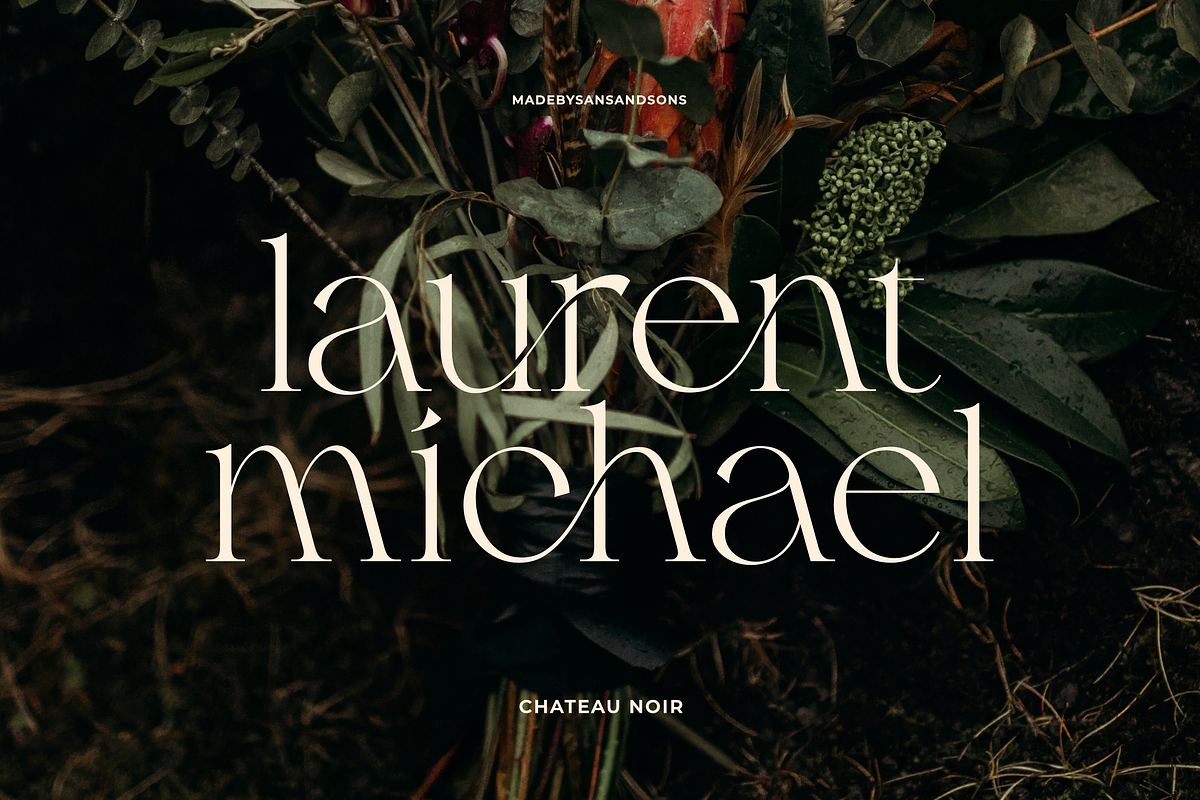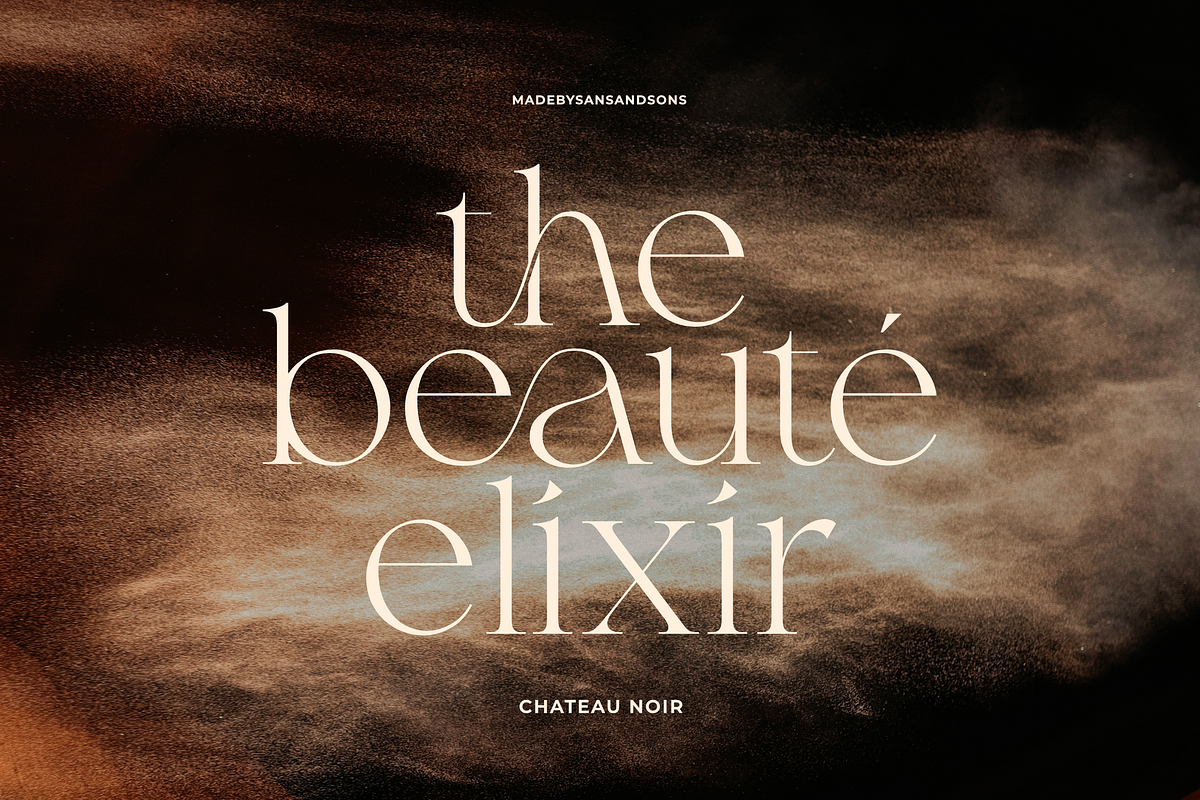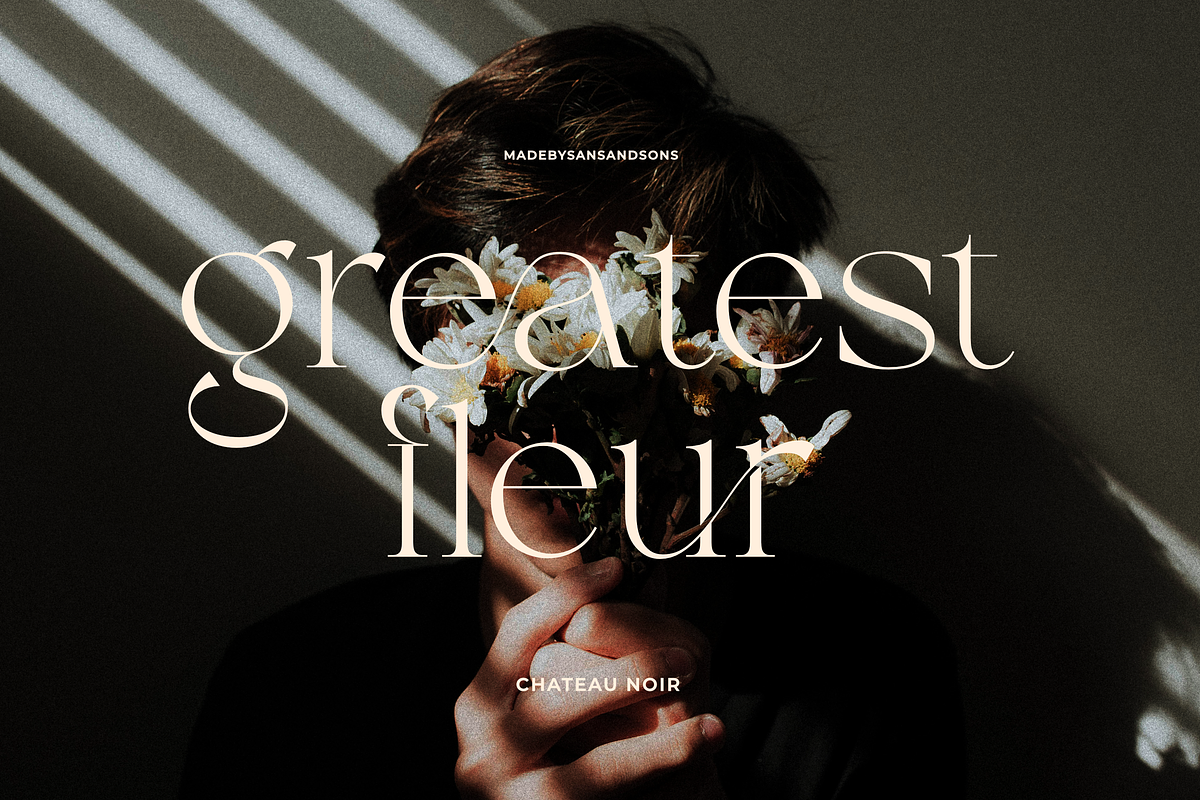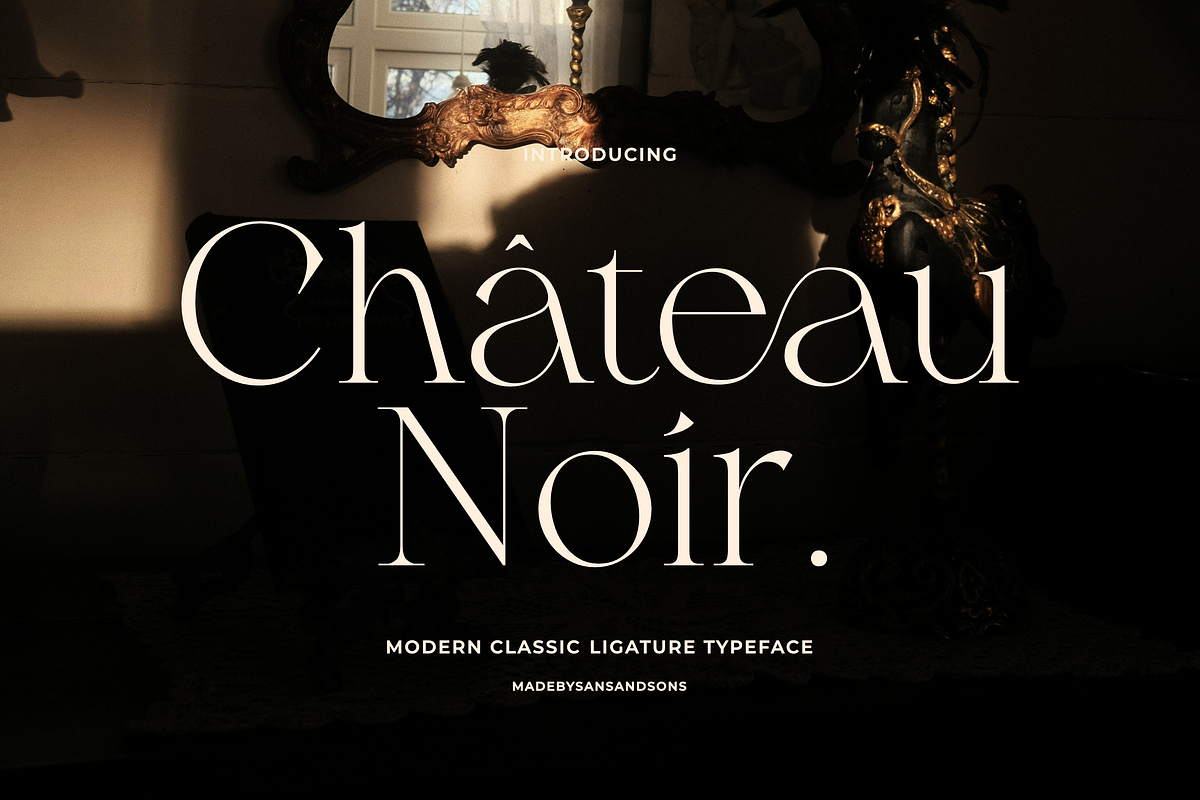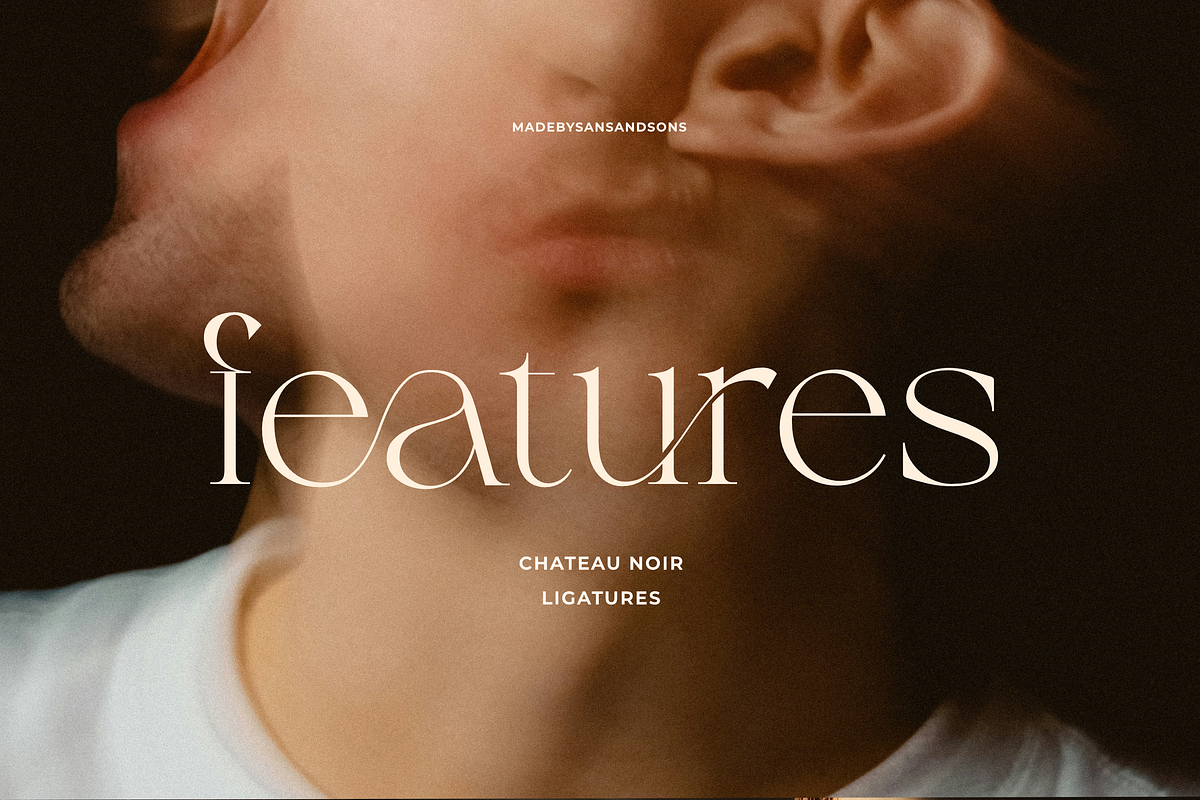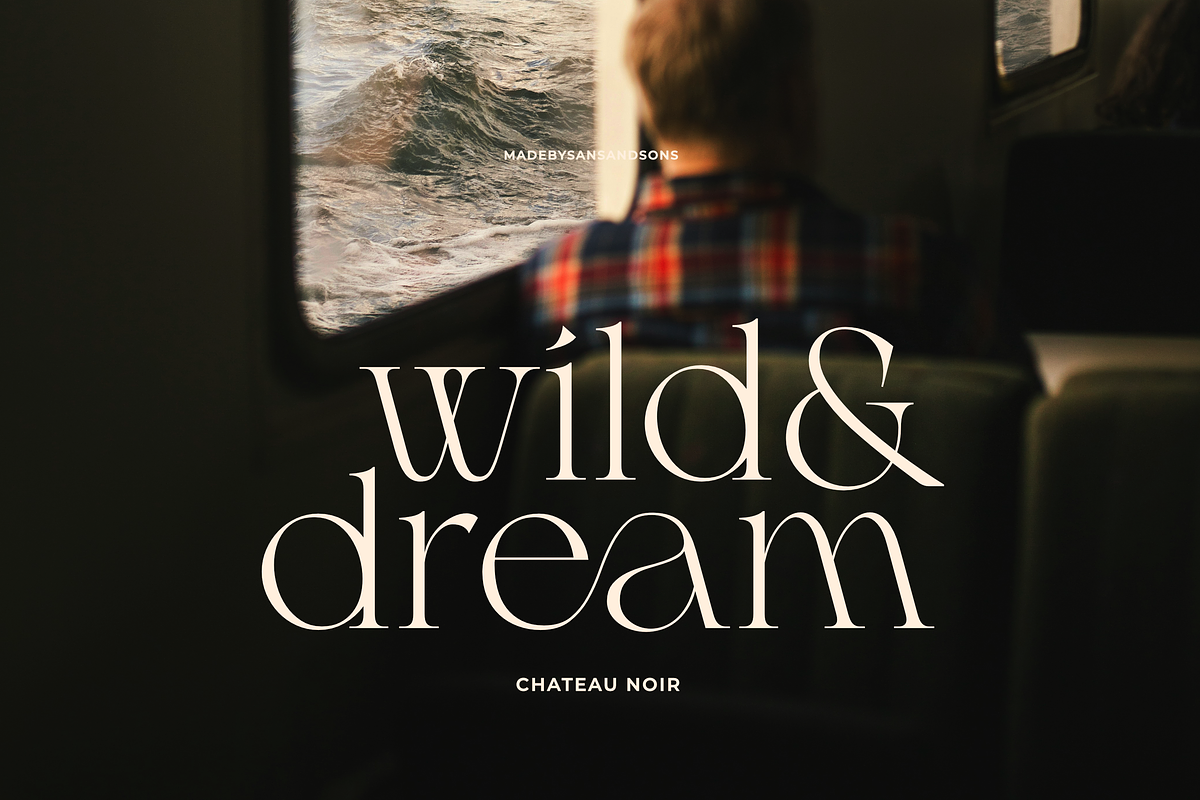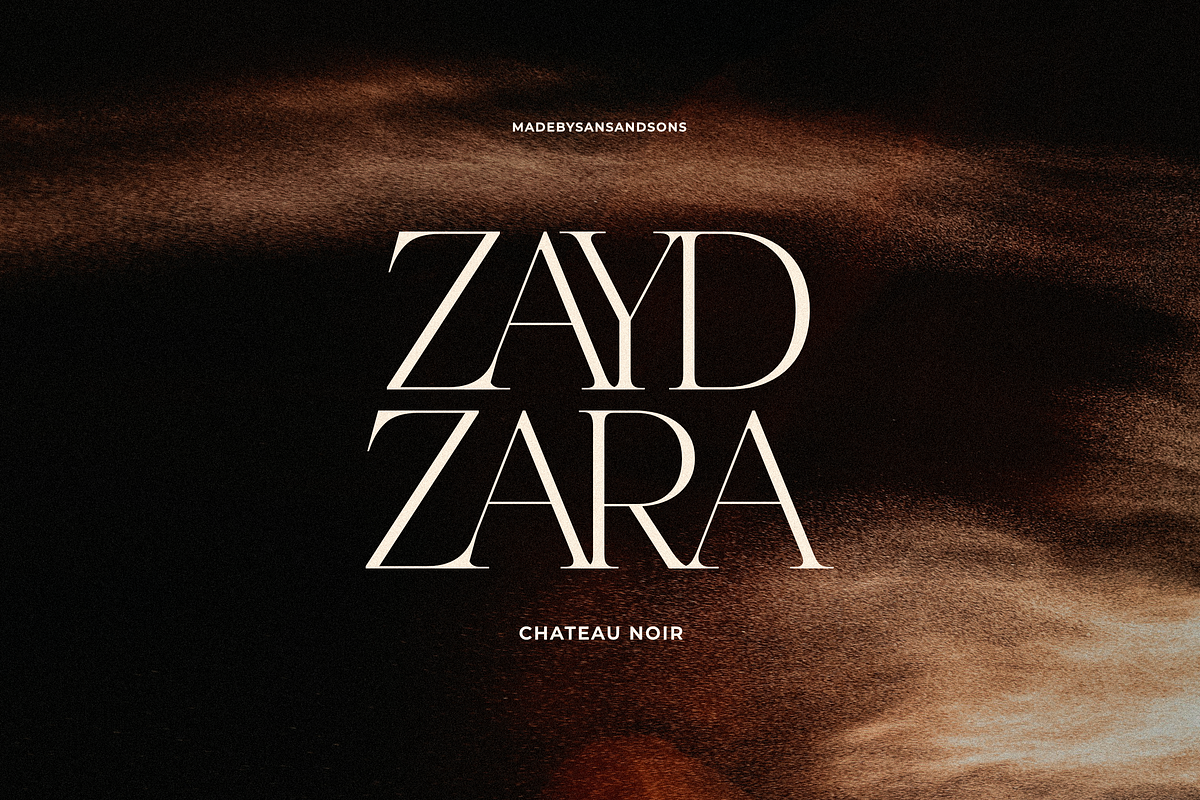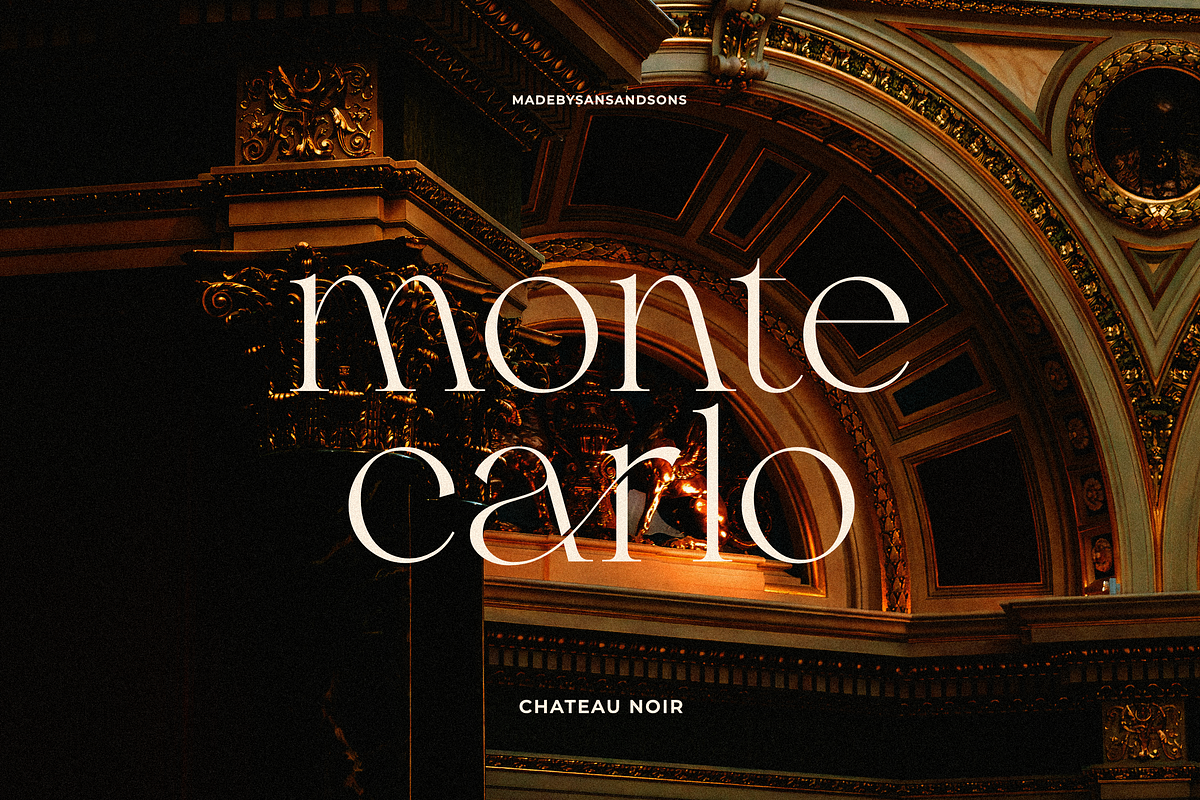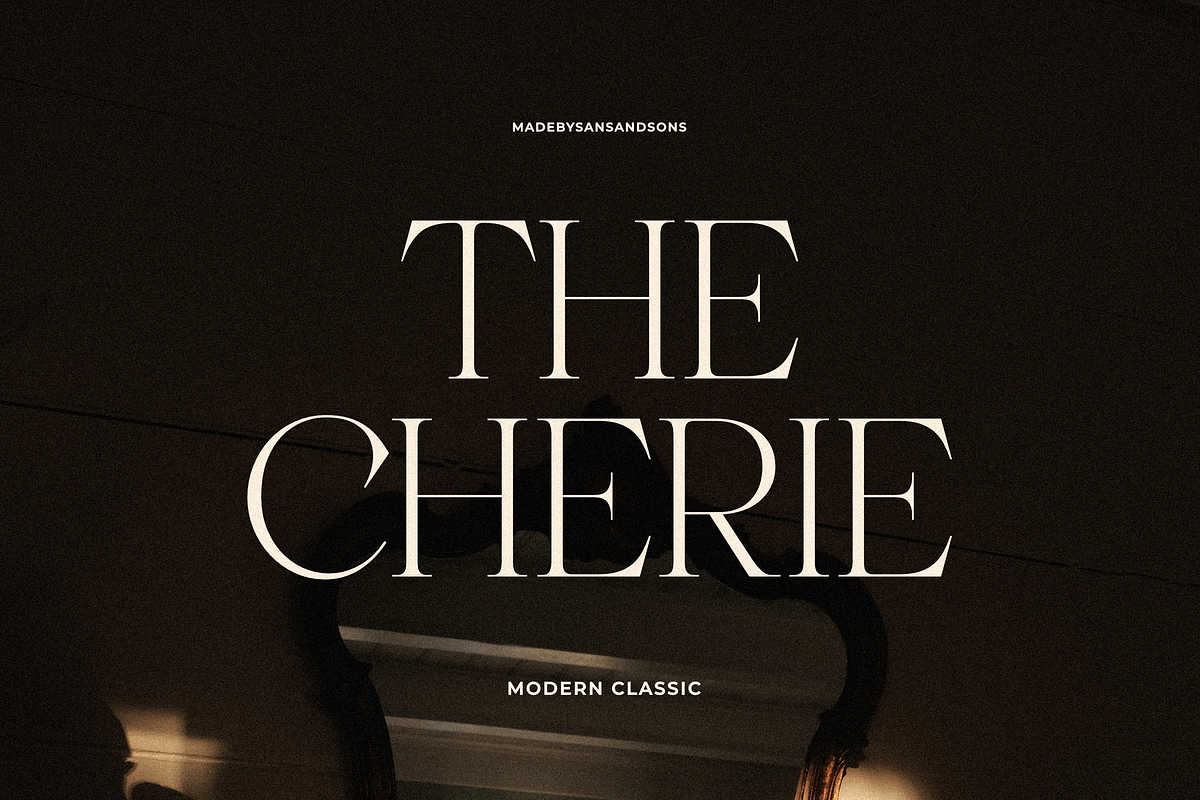
SNS - Chateu Noir
Chateau Noir – Elegance with a Modern Touch
Meet Chateau Noir, a serif font with a classy yet effortless charm. Inspired by the timeless beauty of European luxury and a hint of mystery, this typeface blends elegant curves with sharp, refined serifs, making it perfect for those who love a sophisticated but modern feel.
Whether you're working on branding, fashion editorials, invitations, or product packaging, Chateau Noir adds that extra touch of luxury. With its smooth ligatures and stylish details, this font is designed to make your projects stand out effortlessly.
Classy, chic, and always in style—Chateau Noir is your new go-to for elegant typography!